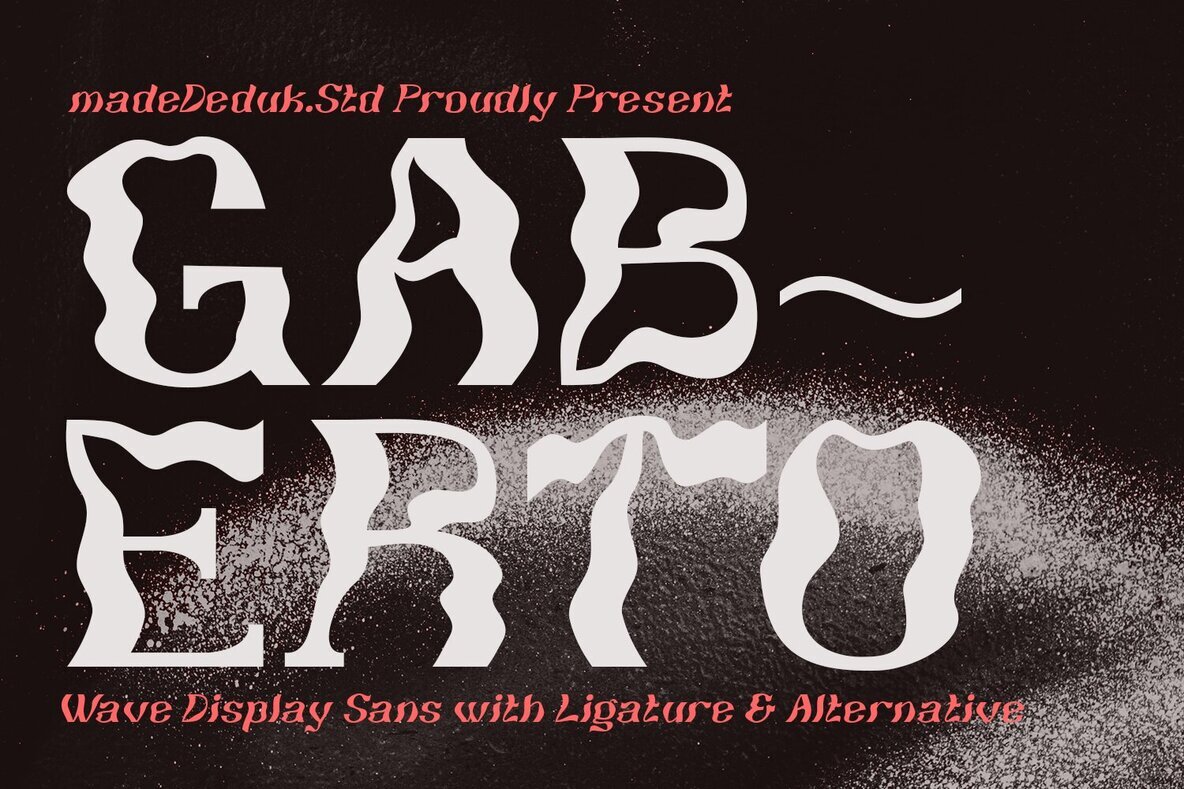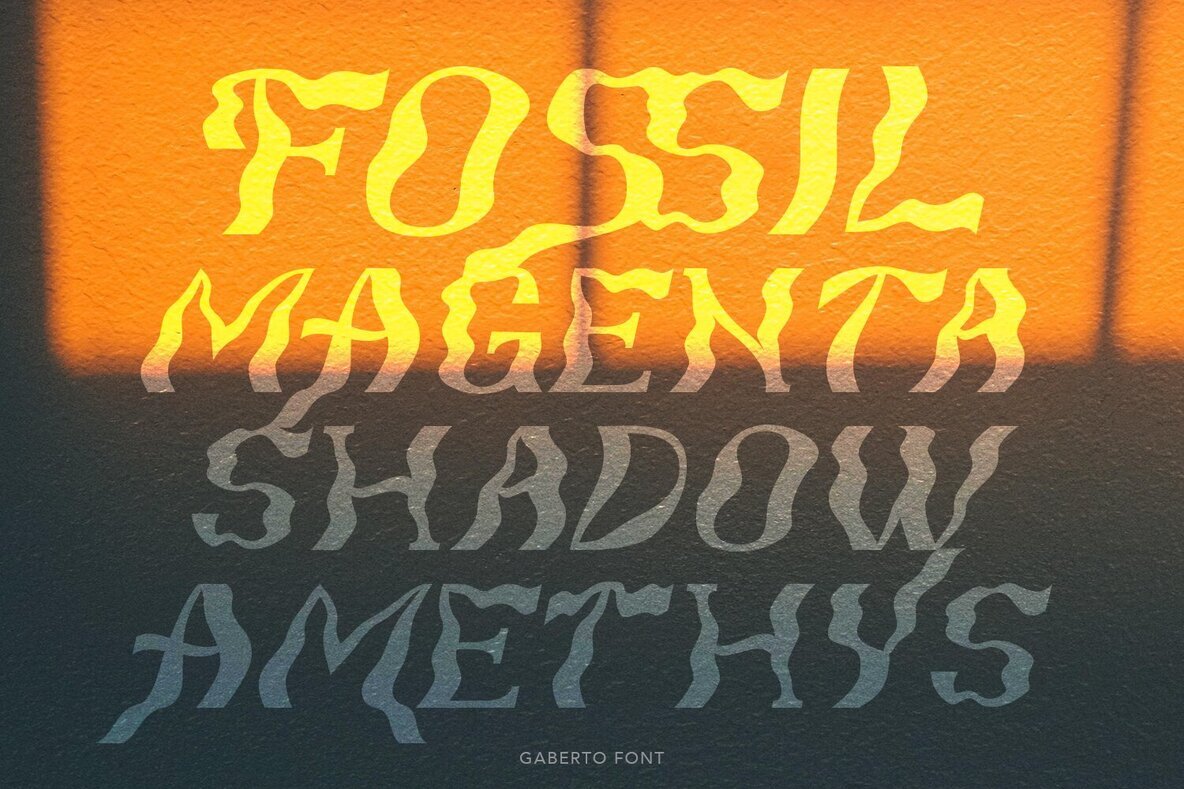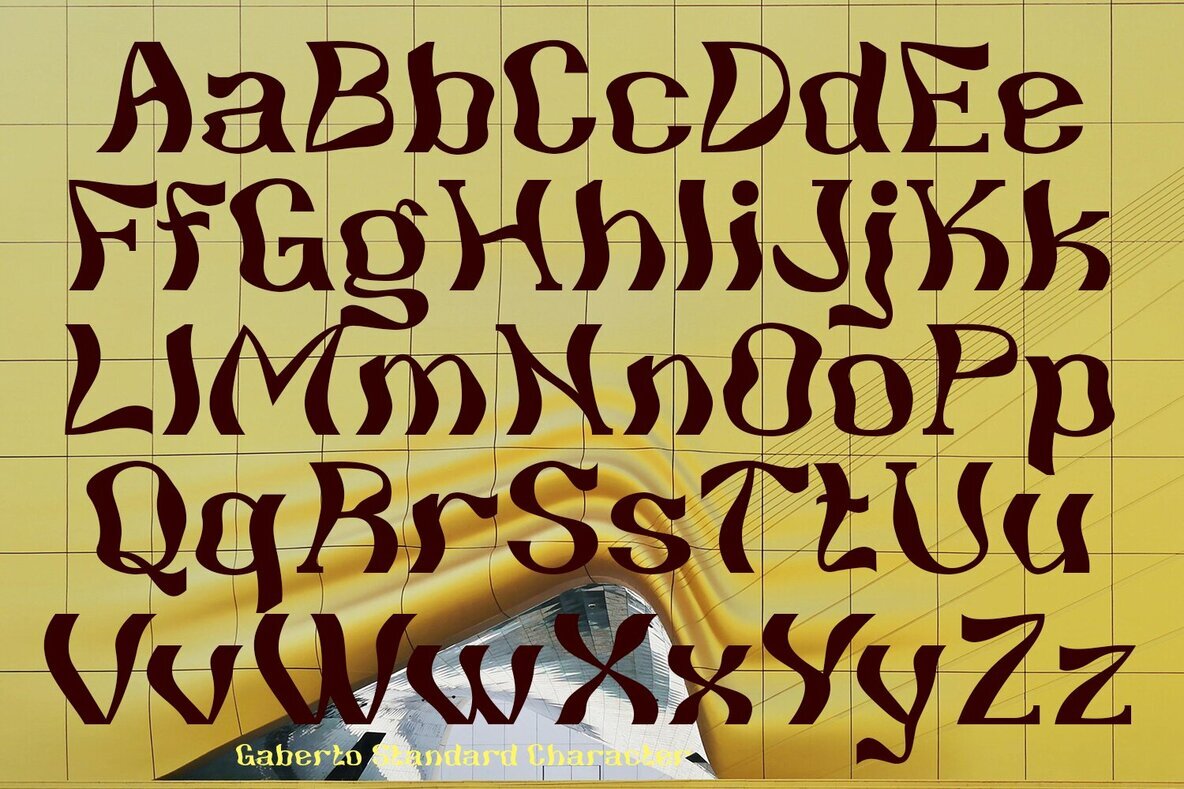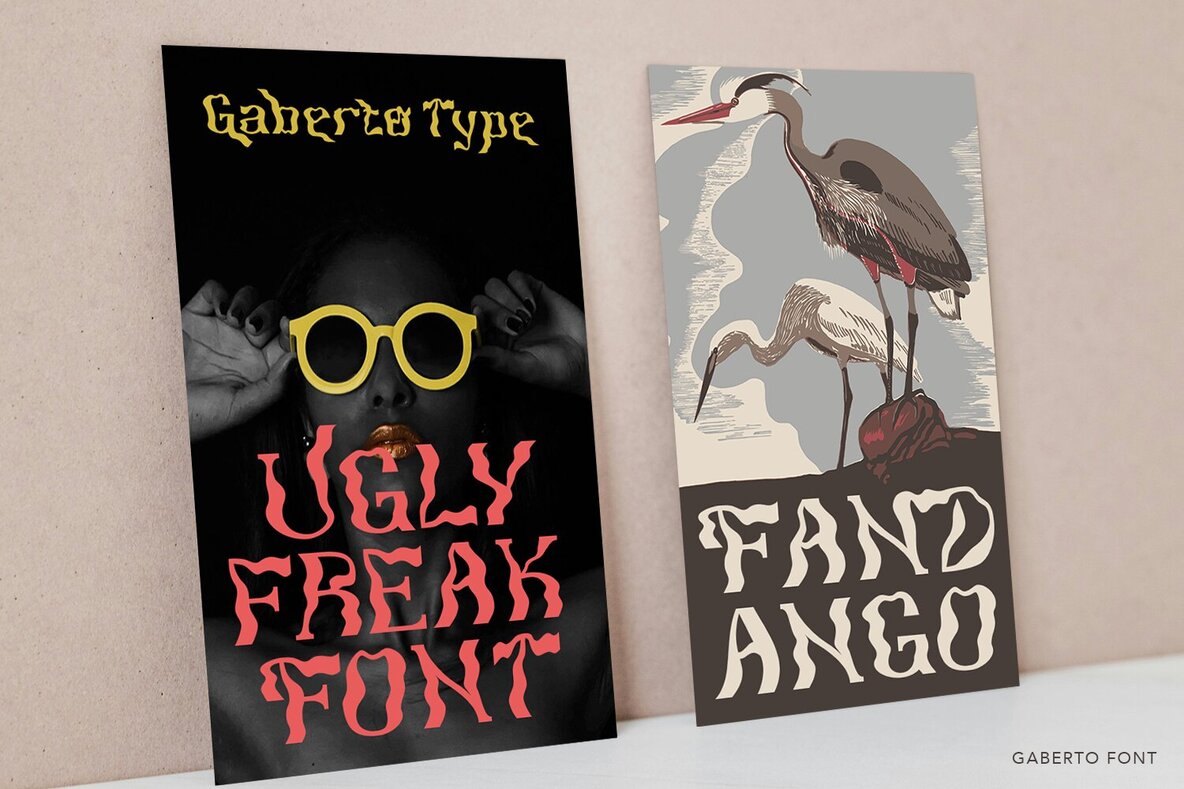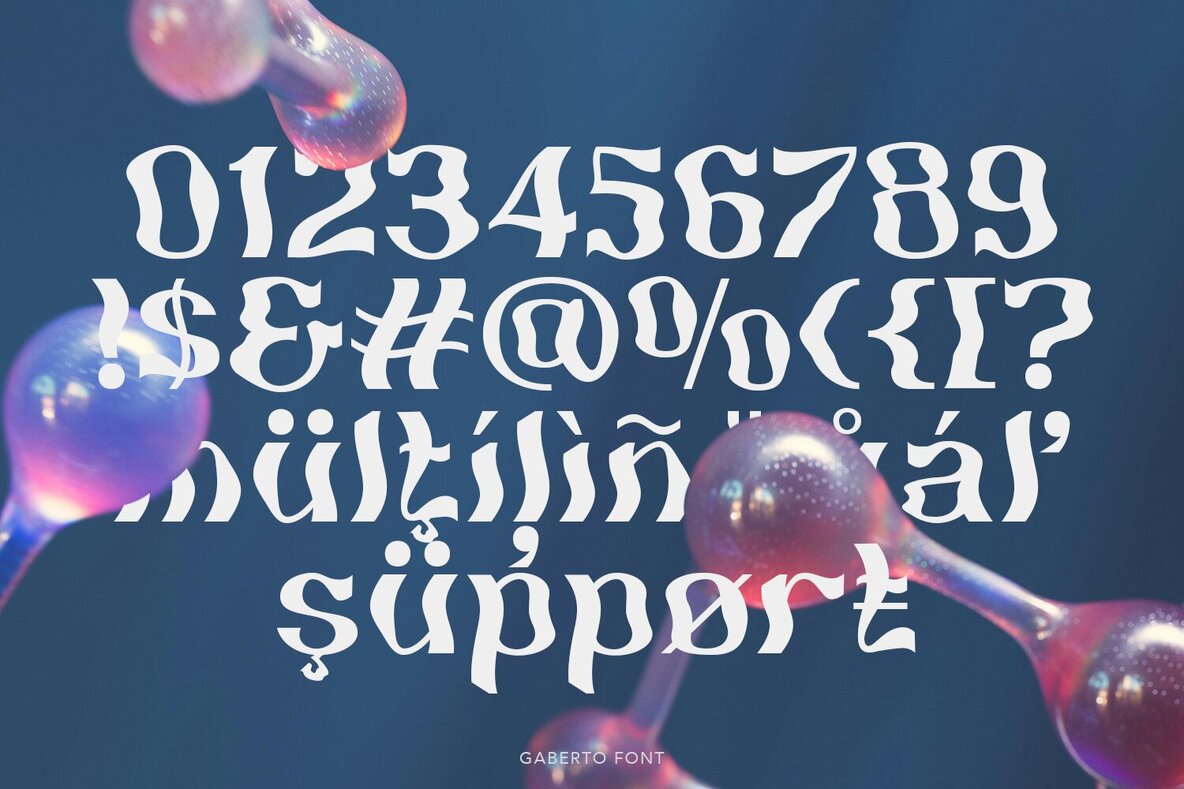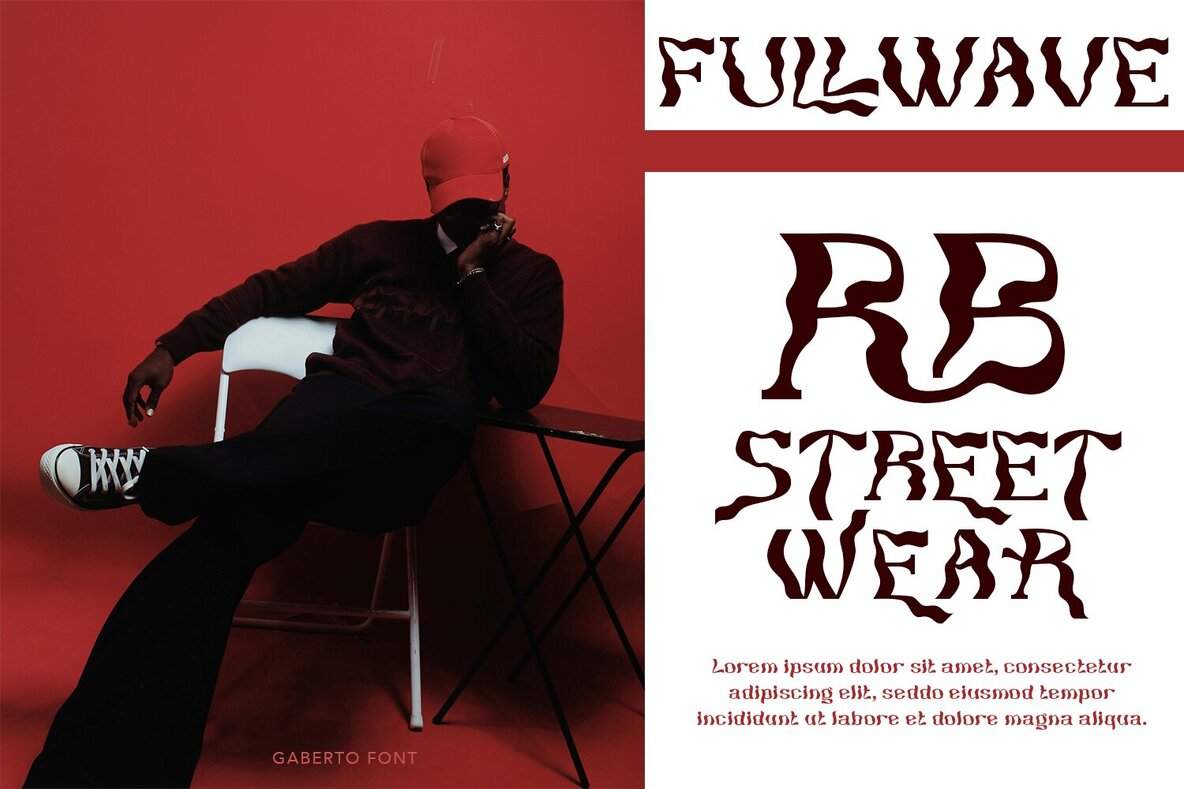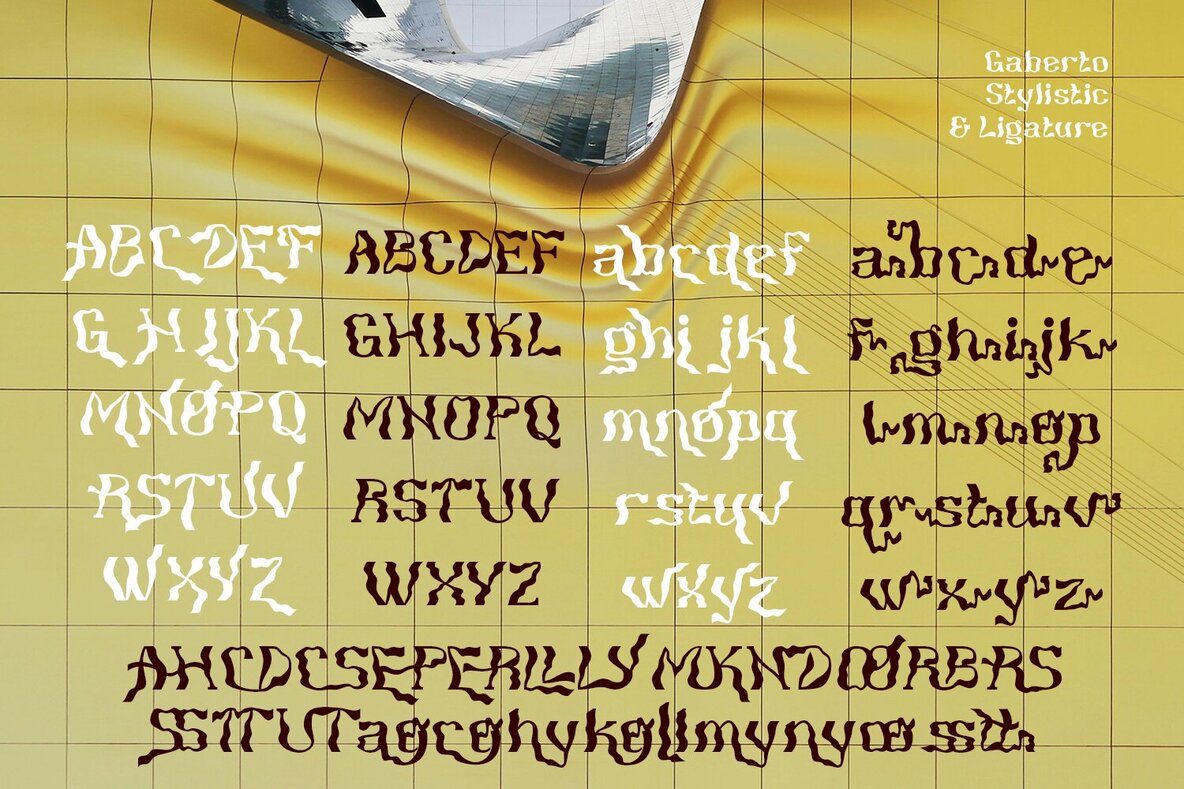
Gaberto Font
Gaberto is a display sans serif font characterized by its wave-like simplicity and high-contrast design, making it ideal for high-end fashion and cultural projects. With its unique flair, Gaberto seamlessly fits into a variety of creative applications, from digital content to printed materials. Explore the versatility of Gaberto to elevate your projects with a touch of sophistication. Its bold yet minimal aesthetic is designed to make your designs stand out.Gaberto: The Chic Display Font